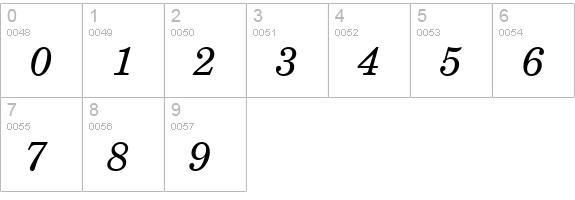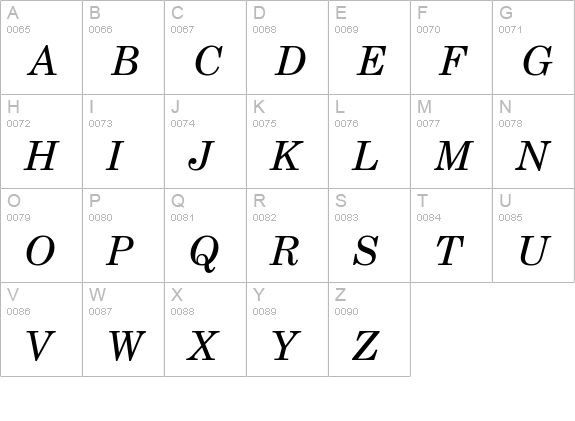
QTSchoolCentury Italic Font Details
QTSchoolCentury Italic is a distinctive, italic variant in the QTSchoolCentury typeface family \xE2\x80\x94 well suited to design and typography projects.
QTSchoolCentury Italic font is a stylish and sophisticated typeface that exudes an air of elegance and professionalism. It combines the classic elements of traditional serif fonts with a contemporary twist, resulting in a timeless design that is perfect for a wide range of projects. With its slanted and graceful letterforms, QTSchoolCentury Italic font adds a touch of sophistication and refinement to any text. Whether used for headings, titles, or body text, this font will captivate readers and leave a lasting impression. One of the standout features of QTSchoolCentury Italic font is its versatility. It seamlessly adapts to various design contexts, making it suitable for both print and digital media. Its legibility ensures that every word is easily readable, even at smaller sizes. In addition to its aesthetic appeal, QTSchoolCentury Italic font is also available for free download at FontsMarket.com. This means that anyone can access and utilize this beautiful font without any cost. Whether you are a professional designer or a student working on a personal project, QTSchoolCentury Italic font is a valuable asset that adds a touch of elegance to your work. So why wait? Download QTSchoolCentury Italic font today from FontsMarket.com and elevate your designs with this stunning typeface. Its versatility, readability, and free availability make it an excellent choice for a wide range of projects. Let your creativity shine with QTSchoolCentury Italic font.